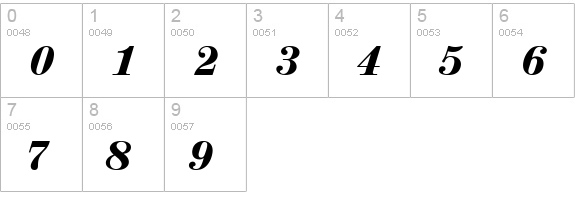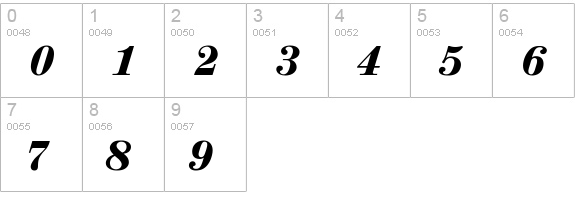
Lucia Display SSi Italic is a distinctive, italic variant in the Lucia typeface family \xE2\x80\x94 well suited to design and typography projects.
Lucia Display SSi Italic font is a stunning and elegant typeface that exudes sophistication and class. Its sleek and slanted design adds a touch of modern flair to any project, making it perfect for branding, headlines, and editorial designs. The italicized version of Lucia Display SSi brings a sense of dynamism and movement to your text, making it stand out with a subtle yet impactful style. And the best part? Lucia Display SSi Italic font is completely free to download at FontsMarket.com. This means you can easily access this beautiful typeface without any cost, allowing you to elevate your designs without breaking the bank. Don't miss out on the opportunity to enhance your projects with this versatile and stylish font – download Lucia Display SSi Italic today and take your design game to the next level!